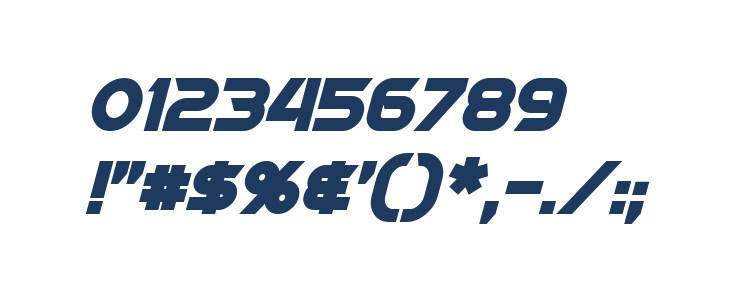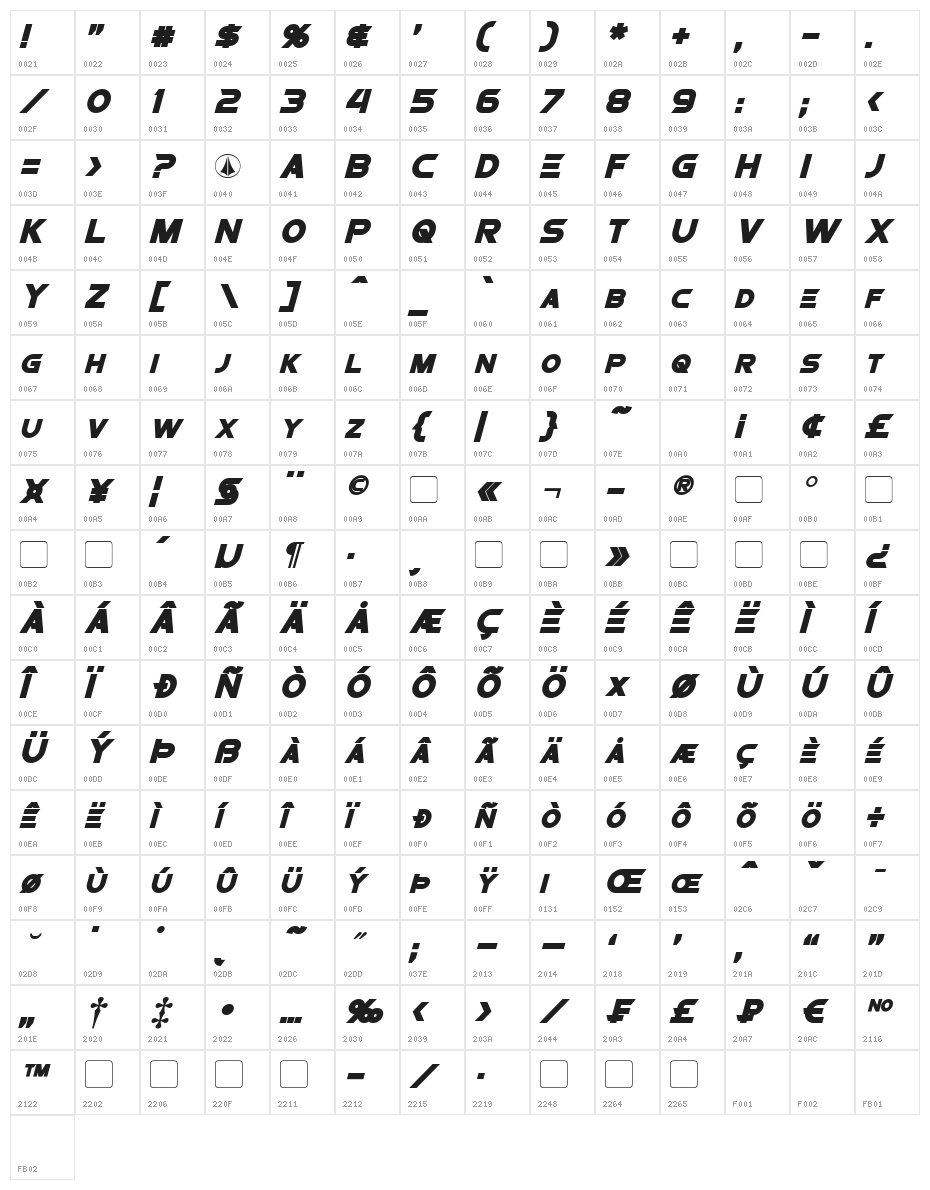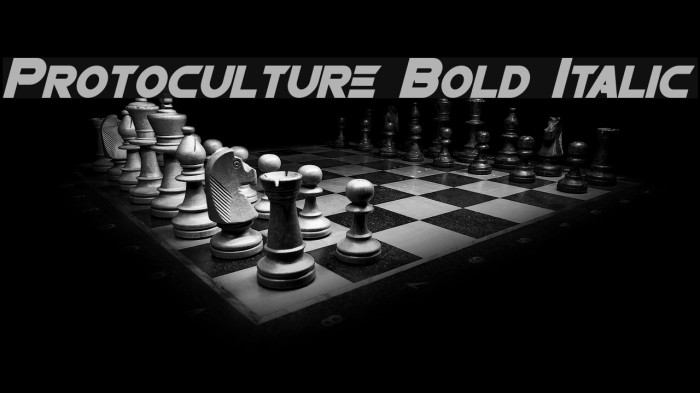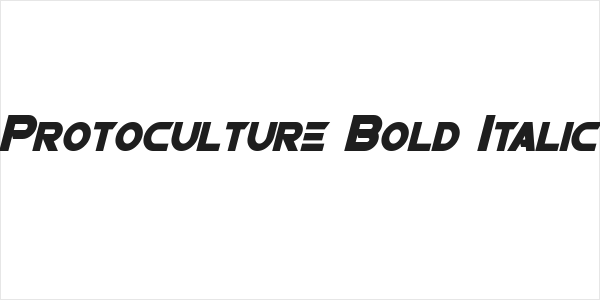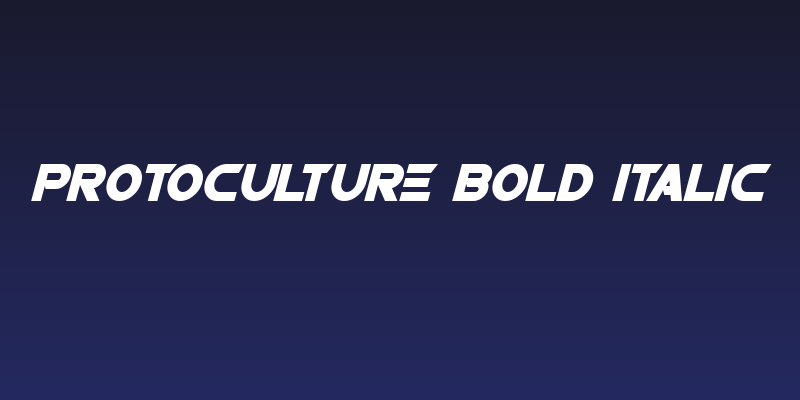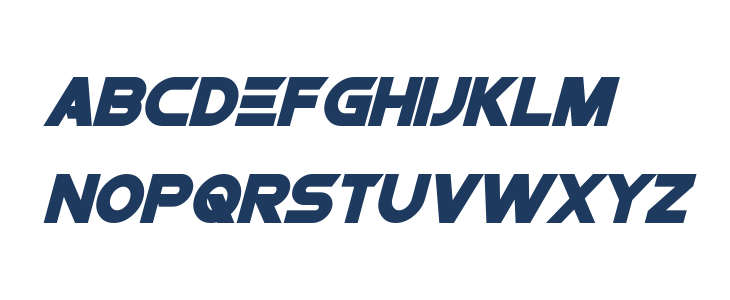
Protoculture Bold Italic Font
Protoculture Bold Italic Description
This font features a bold and italicized style, characterized by its strong geometric shapes and dynamic slant. The uppercase and lowercase letters maintain a consistent weight, providing a cohesive and powerful appearance. The numerals are designed to match the boldness of the alphabet, ensuring uniformity across all characters. Special characters are included, each crafted with the same attention to detail and boldness. The overall design is modern and futuristic, making it suitable for projects that require a strong visual impact. The font's structure is clean, with sharp edges and a slight forward tilt that adds a sense of motion and energy.
| Use Case | Logos, Headlines |
| Proposed Projects | Ideal for branding, advertising, sports team logos, and technology-related designs. |